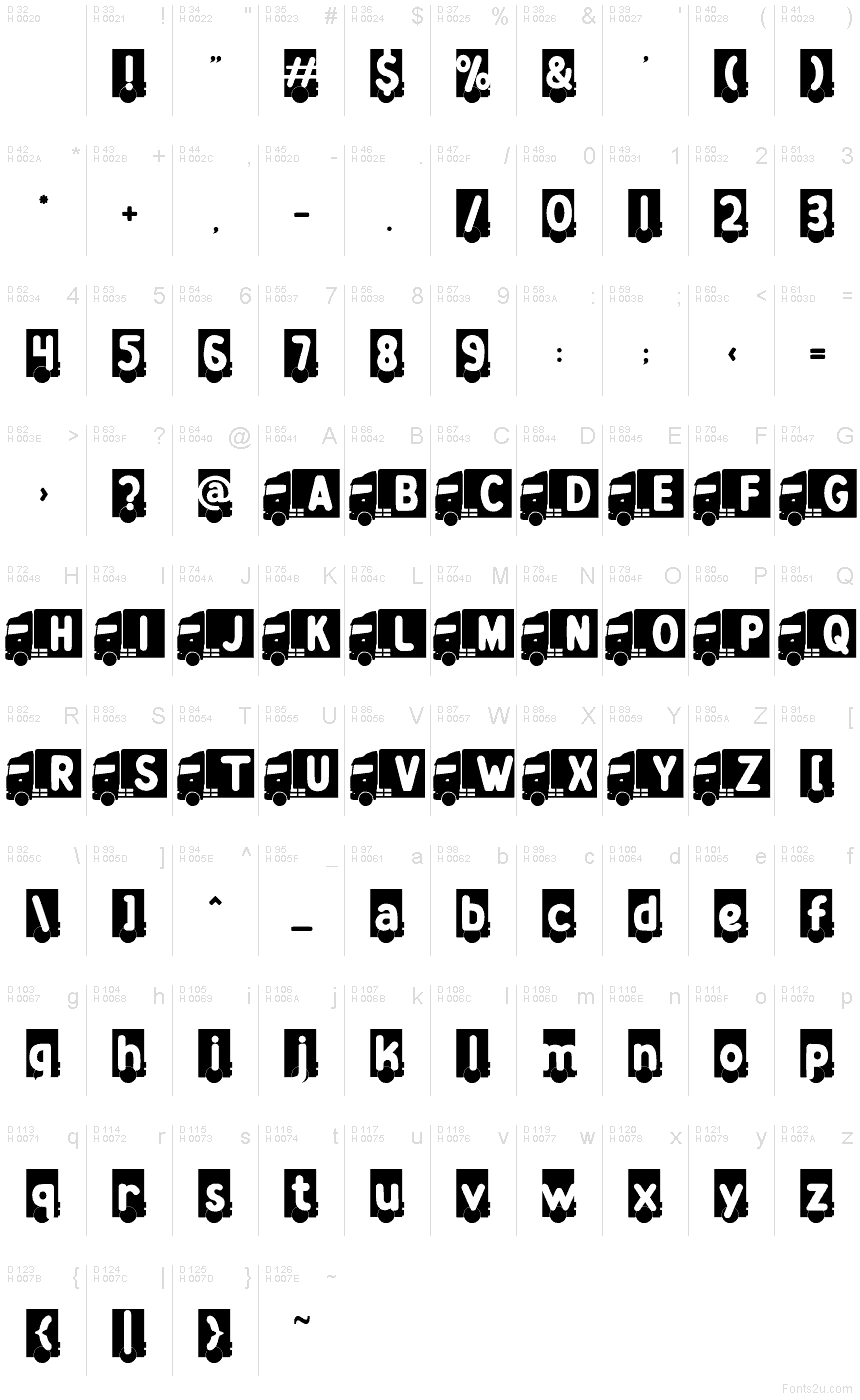
Zany Route Truck
Zany Route Truck font is a bold decorative display font designed by PutraCetol Studio. Expressive, whimsical, and full of character, it integrates creativity and high foreground-background contrast for an unconventional appearance. It surprises with spontaneity in each letter with the aim of emphasizing textual content to establish a solid visual identity. With its sketchy design elements, this typeface provides a novel twist wherever used.